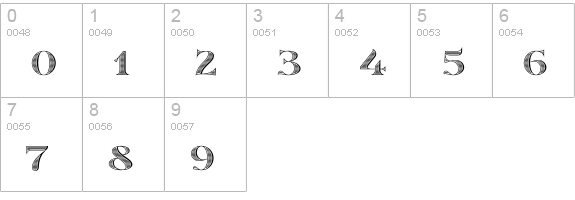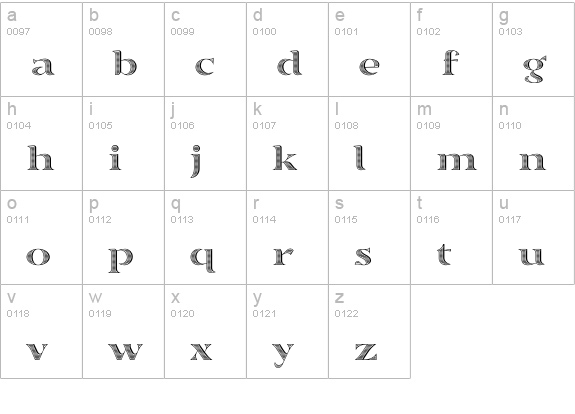
SortefaxS02 Font Details
SortefaxS02 is a stunning and versatile font that effortlessly combines elegance with modernity. Its unique design features a blend of sharp edges and smooth curves, creating a visually captivating typeface that commands attention. This font is perfect for a wide range of creative projects, from branding and logo design to advertising and editorial layouts. Its clean and crisp appearance ensures readability, while its distinct character adds a touch of sophistication to any composition. One of the best features of SortefaxS02 is that it is completely free to use. You can easily download this font at FontsMarket.com, a trusted source for high-quality fonts. Whether you're a professional designer or a hobbyist, this font provides endless possibilities for creating visually stunning and impactful designs. With its wide range of weights and styles, SortefaxS02 offers flexibility and versatility. From regular to bold, italic to underline, this font has all the variations you need to bring your ideas to life. Its extensive language support allows you to communicate your message effectively across different cultures and languages. SortefaxS02 is designed to make your work stand out, ensuring that your designs leave a lasting impression. Its sleek and modern aesthetic adds a touch of sophistication to any project, making it the perfect choice for those seeking a font that combines elegance and contemporary flair. Download SortefaxS02 for free at FontsMarket.com and unlock the potential to create captivating and visually stunning designs. Whether you're working on a personal project or a professional assignment, this font is sure to exceed your expectations and elevate your creative endeavors to new heights.